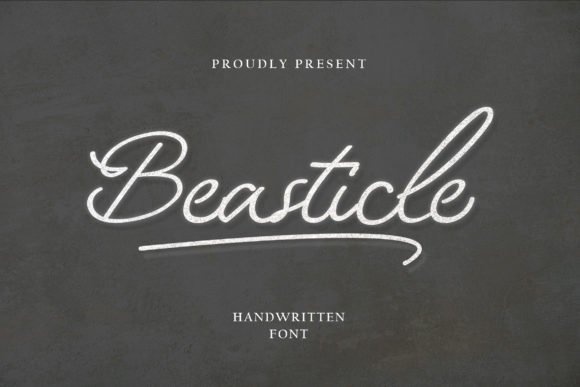
Discovering the Sweet Charm of Beasticle Font
As you sit down to craft a wedding invitation or a heartfelt birthday card, the blank page stares back at you, begging for creativity to flow. It’s a moment we’ve all experienced – the blank slate, the empty space, the anticipation of bringing joy to the recipient. In these moments, the right font can be the key to unlocking the perfect sentiment.
Enter Beasticle Font, a delightful handwritten font that embodies the essence of romance and whimsy. Its dainty curves and joyful strokes make it the perfect companion for any design that requires a touch of warmth and personality. Whether you’re a seasoned designer or a DIY enthusiast, Beasticle Font is an invaluable tool that will add a personal touch to your creations.
With Beasticle Font, you can elevate your designs from ordinary to extraordinary, making it a valuable addition to any designer’s toolkit.
Beasticle Font Key Features
- Unique Characteristics: Beasticle Font features a unique, hand-drawn design with bold lines and playful flourishes, making it perfect for creating eye-catching and memorable designs.
Beasticle Font Review
Overall, I was quite excited to dive into the Beasticle Font. Here are my honest thoughts:
- Unique and bold aesthetic that grabs attention
- Clean lines and modern design make it suitable for various projects
- Impressive font pairing options for added versatility
The Beasticle Font truly shines in its modern and edgy vibe. It’s perfect for projects that need a bold statement, such as posters, social media graphics, or even titles for a documentary.
- May not be suitable for body text due to its large size and bold style
- Some characters might not display correctly on certain devices or browsers
- Limited language support, which may hinder its use in international projects
While the Beasticle Font is a great addition to any designer’s toolkit, it does have its limitations. Be sure to consider these factors when deciding whether to use it in your next project.
The Beasticle Font is a solid choice for designers looking to add a modern and edgy touch to their work. With its unique aesthetic and impressive pairing options, it’s definitely worth considering. However, be mindful of its limitations to ensure it meets your project’s specific needs.
Beasticle Font is perfect for creating bold, eye-catching designs. Use it for:
- Posters and flyers
- Business cards and resumes
Remember to experiment with different font sizes, colors, and combinations to get the most out of Beasticle Font.
Alternatives to Beasticle Font
Pacifico is a beautiful, elegant script font that is perfect for creating a romantic or vintage feel. It is ideal for use in wedding invitations, greeting cards, and other special occasions. Pacifico has a similar cursive style to Beasticle Font but with a more refined and sophisticated look.
Great Vibes is a fun, playful script font that is great for creating a lively and energetic feel. It is perfect for use in advertisements, social media posts, and other promotional materials. Great Vibes has a more casual and relaxed feel compared to Beasticle Font, making it ideal for younger audiences.
Carolyna Pro is a modern, elegant script font that is perfect for creating a sophisticated and luxurious feel. It is ideal for use in high-end branding, advertising, and editorial design. Carolyna Pro has a more refined and polished look compared to Beasticle Font, making it ideal for corporate and professional applications.